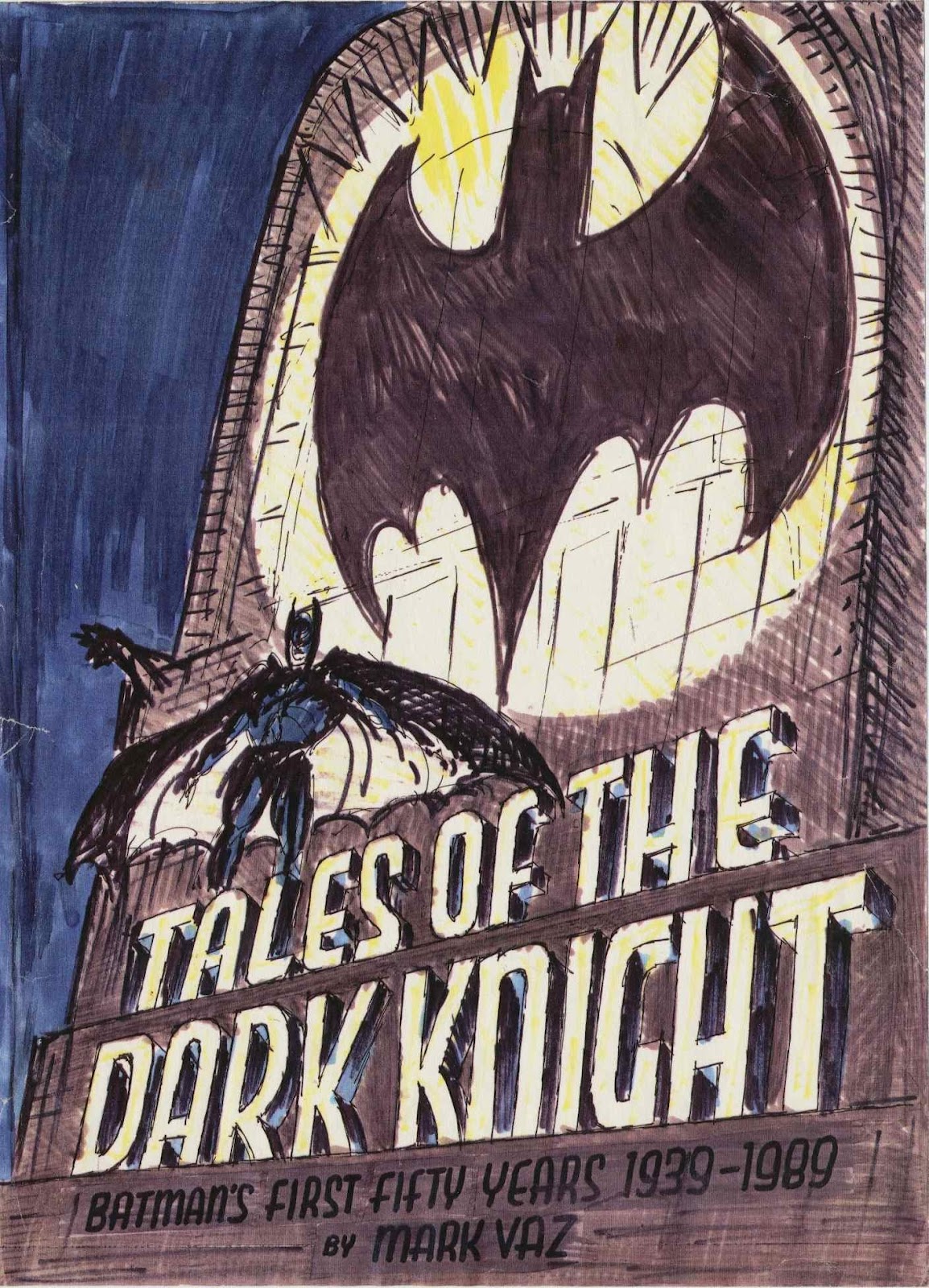
Mark Cotta Vaz proposed to DC Comics a book celebrating Batman’s fiftieth anniversary. This book was handled by Joe Orlando, who was DC Comics’ Editor for Special Projects. Ballantine Books was chosen to publish the book.
At the meeting I was given a copy Vaz’s proposal plus a number of Batman books and posters for reference. Risa Kessler wanted the cover to incorporate Batman into the city architecture/skyline as Frank Miller had done in one of his Dark Knight Returns illustrations. She also hoped to get Miller to do the cover for this book. A date was set for me to present cover concepts.
I began working on cover concepts. I incorporated Batman into the skyline with a bat reflected in the river. The title was off to the side like the Dark Knight Returns book.
One of the reference books from DC was Batman: Son of the Demon which showed Batman atop a building. I thought of trying something similar to what Will Eisner had done on the splash pages of The Spirit in which the letters S-P-I-R-I-T are part of the scene.
What I came up with wasn’t clever like The Spirit but more like the biblical movie posters for Ben-Hur and King of Kings; the titles were in perspective and built of stone with characters from the movie placed in and around the letters.
Chrysler Building (my favorite, too). The concept of Batman on the Chrysler Building plus photos of the Chrysler Building, for reference, were sent to DC Comics.
A few weeks later, the finished illustration was delivered to Ballantine Books. Sigmond Pifko, the illustrator, did the airbrush art on 30 x 40 inch illustration board. I was given an 8-by-10-inch color transparency of the illustration so I could do the cover mechanical. Using a scanner drum to make color separations of the art was the norm in the publishing industry. The transparency I had could have been scanned but Fred decided to make a conventional camera separation from the original illustration. As you may know, a transparency has a slight blueish tint. The typeface for the subtitle and author’s name was supplied by Photo-Lettering who photographically manipulated the type to match the perspective of the title. The book was published shortly after the release of Tim Burton’s Batman movie.
| Cover proof; originally, the book measured 9 by 12 inches / 22.9 by 30.5 centimeters. |
| The book measured 8.375 by 10.875 inches / 21.3 by 27.6 centimeters. |
Although Frank Miller did not do the cover, I think Pifko, a Canadian, did a terrific job. Sometime after the book was published in 1989, I called him. He told me that he had my concept drawing and a pencil drawing from Orlando, who had refined my design and changed the attitude of Batman from looking down to turning and looking at you. A similar approach was used on The Amazing Spider-Man Annual 37, July 2010.
A “parody” of the cover was published as the cover of VAR Business, November 1991, which was included in the Print Regional Design Annual 1990. I mentioned it to Robbin Brosterman, a designer at at DC Comics, who informed Lillian Laserson, DC’s in-house counsel. A series letters between DC, VAR and CMP Publications resulted in a clarification.